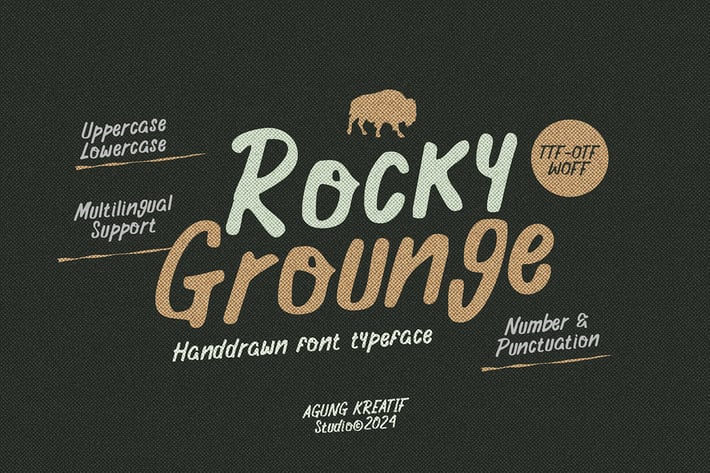
Rocky Grounge - Handdrawn Typeface
Rocky Grounge is a rough hand-drawn typeface. It has a unique and eye-catching style that makes it suitable for a variety of design projects. This font can be used to create posters, album covers, logos, and more.
Overall, Rocky Grounge is a versatile and stylish font that can be used for a variety of design projects. It has a unique and eye-catching style that makes it stand out from the crowd.